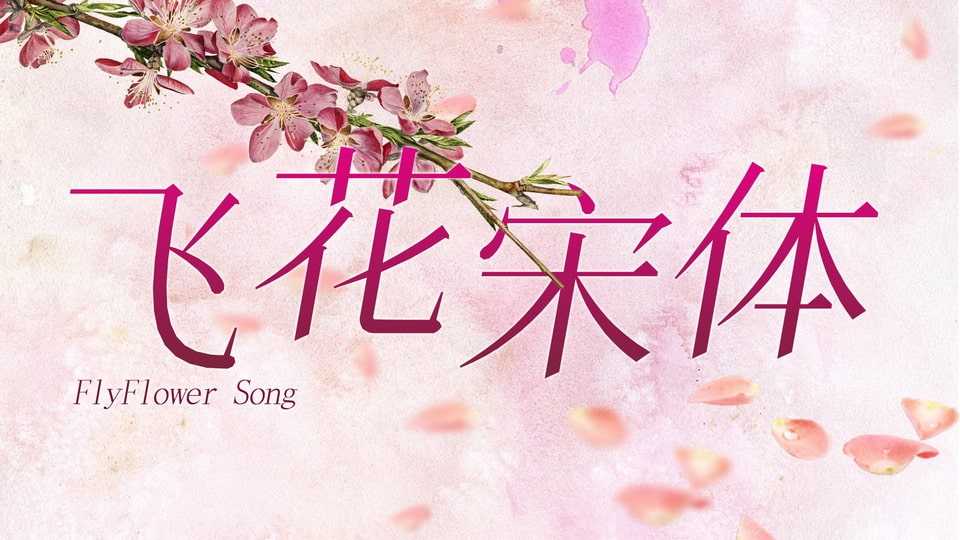
Download FlyFlowerSong font, a typeface based on the Garden Ming Dynasty style, a free font, developed for GlyphWiki (glyph wiki), which contains almost all Chinese glyphs. FlyFlowerSong supports simplified Chinese characters, also supports Russian, Greek, Korean, Latin, Braille, and mathematical symbols involved in middle school.